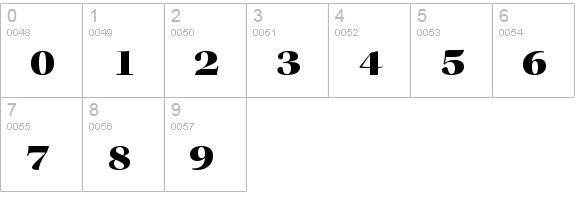
Kepler Std Black Extended Subhead Font Details
Kepler Std Black Extended Subhead is a maximum-weight, dramatic, extended-width variant in the Kepler typeface family \xE2\x80\x94 well suited to maximum-impact headlines, posters, and packaging.
Kepler Std Black Extended Subhead font is a bold and authoritative typeface that commands attention with its strong presence. It exudes confidence and is perfect for adding emphasis to subheadings and titles. With its extended letterforms, it allows for maximum impact and readability, making it an ideal choice for headlines in both print and digital media. What makes Kepler Std Black Extended Subhead even more appealing is that it is available for free download at FontsMarket.com. This means that designers, writers, and anyone in need of a powerful and striking font can access it without any cost. Whether you are working on a personal project or a professional assignment, this font ensures that you have a high-quality tool at your disposal to make your designs stand out. The clean and bold lines of Kepler Std Black Extended Subhead font give it a modern and timeless quality. It is versatile enough to be used in a variety of design contexts, whether it's for branding, advertising, editorial layouts, or website headers. Its wide range of characters and glyphs provide flexibility and allow for creative expression in typography. With Kepler Std Black Extended Subhead font, you have the freedom to explore different design possibilities and create visually stunning compositions. Its strong visual presence and readability make it an excellent choice for conveying important information and making a lasting impression on your audience. Download Kepler Std Black Extended Subhead font for free at FontsMarket.com and unlock the potential of this exceptional typeface. Elevate your design projects to new heights with this bold and captivating font that is sure to leave a lasting impact.